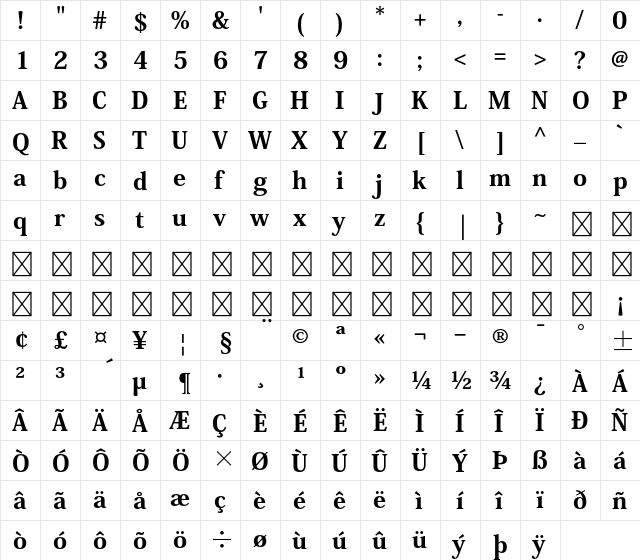
Kozuka Mincho Pr6N H
| Designer | Masahiko Kozuka |
Design Context for Kozuka Mincho Pr6N Typeface
Kozuka Mincho Pr6N is a composed and adaptable typeface that performs quietly and consistently across a wide range of design contexts.
Pro Tip: Pair Kozuka Mincho Pr6N with a font of contrasting weight or personality to build a more expressive typographic hierarchy.